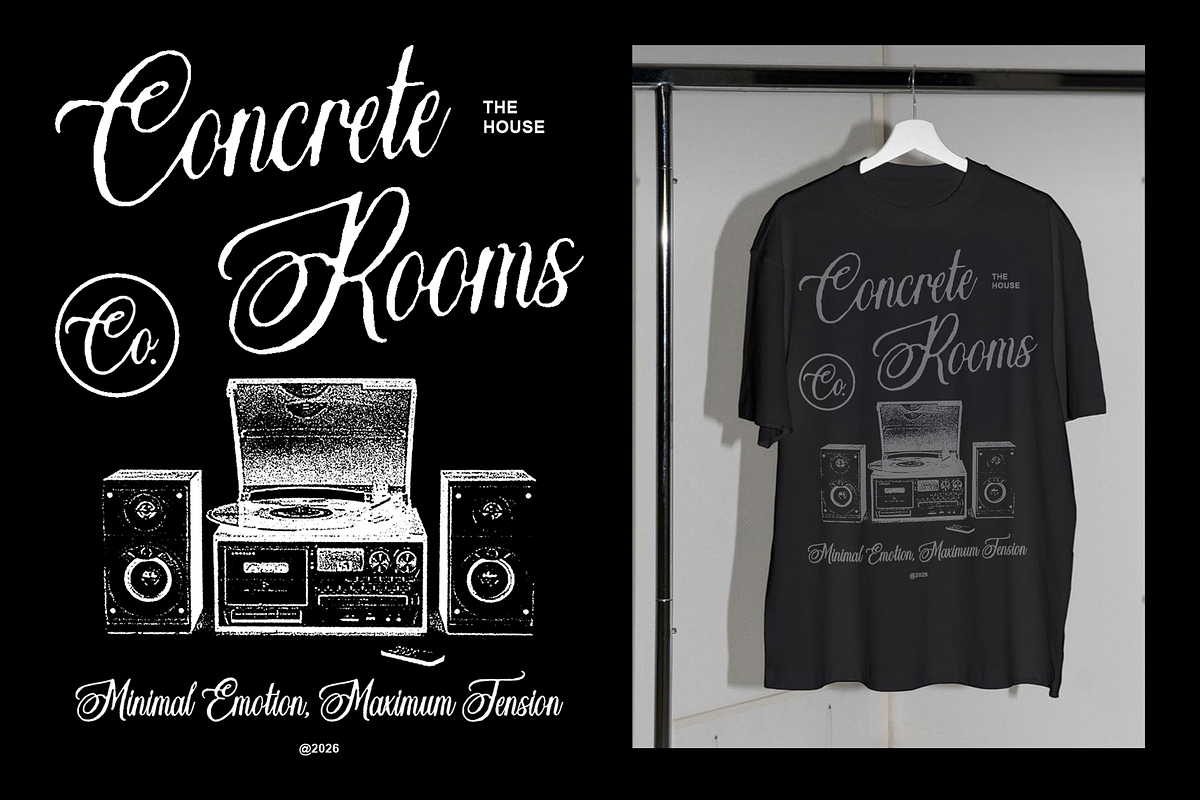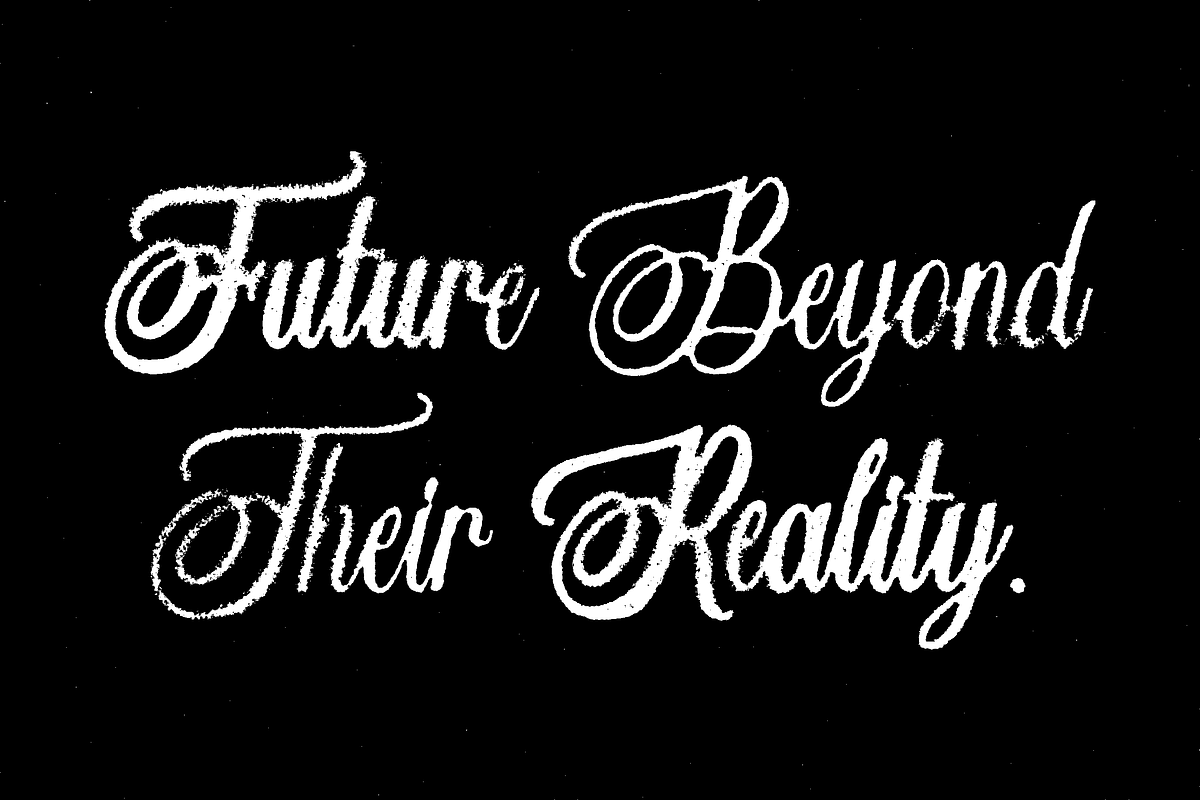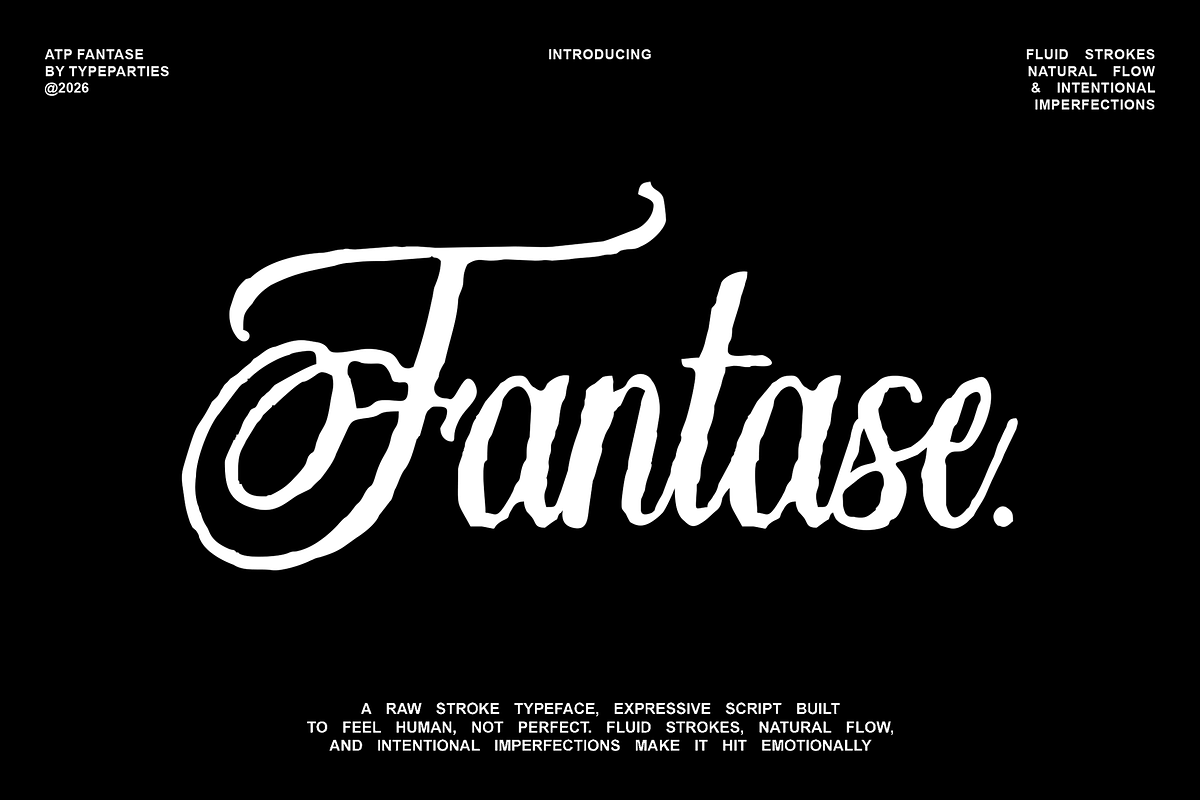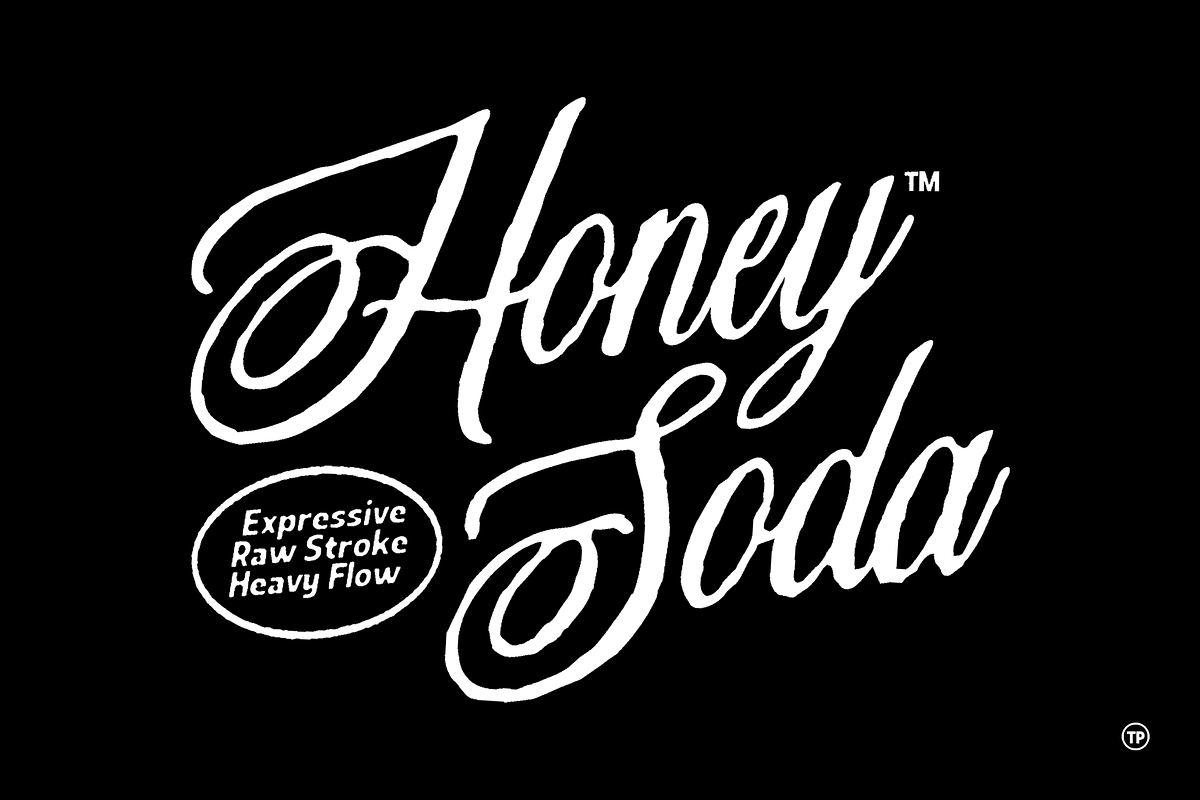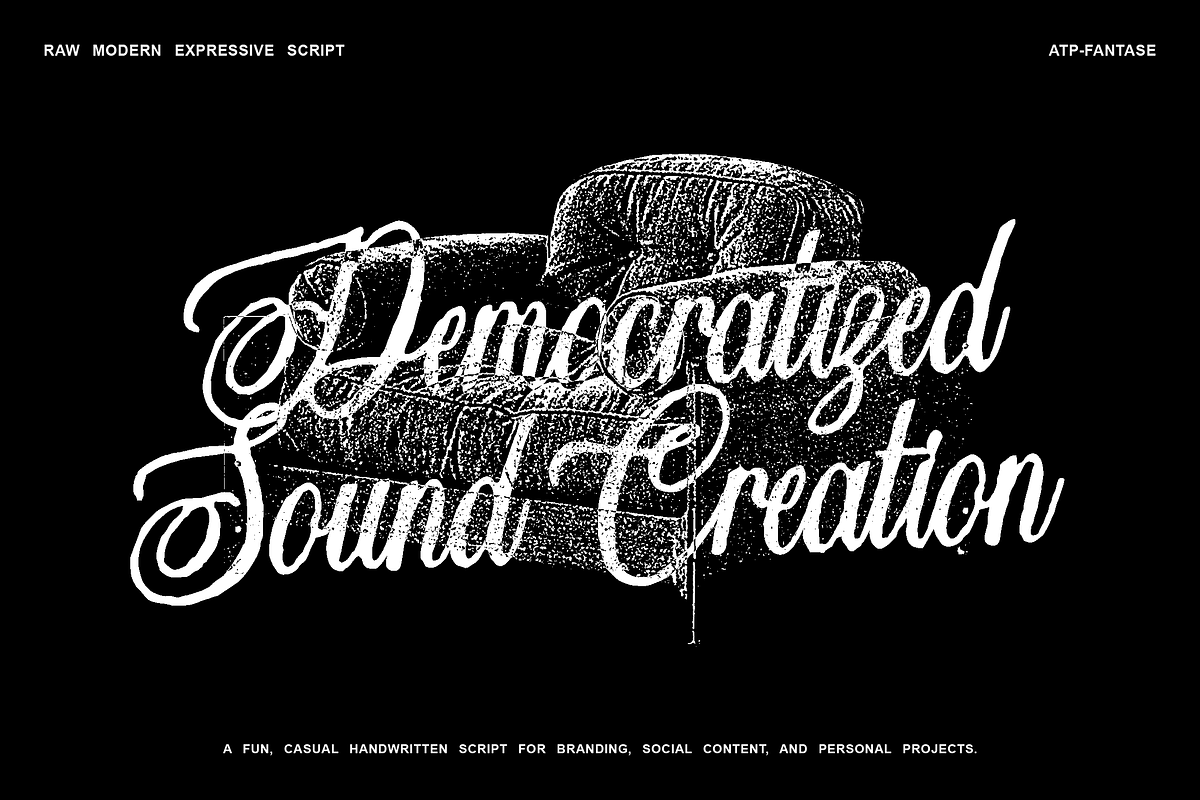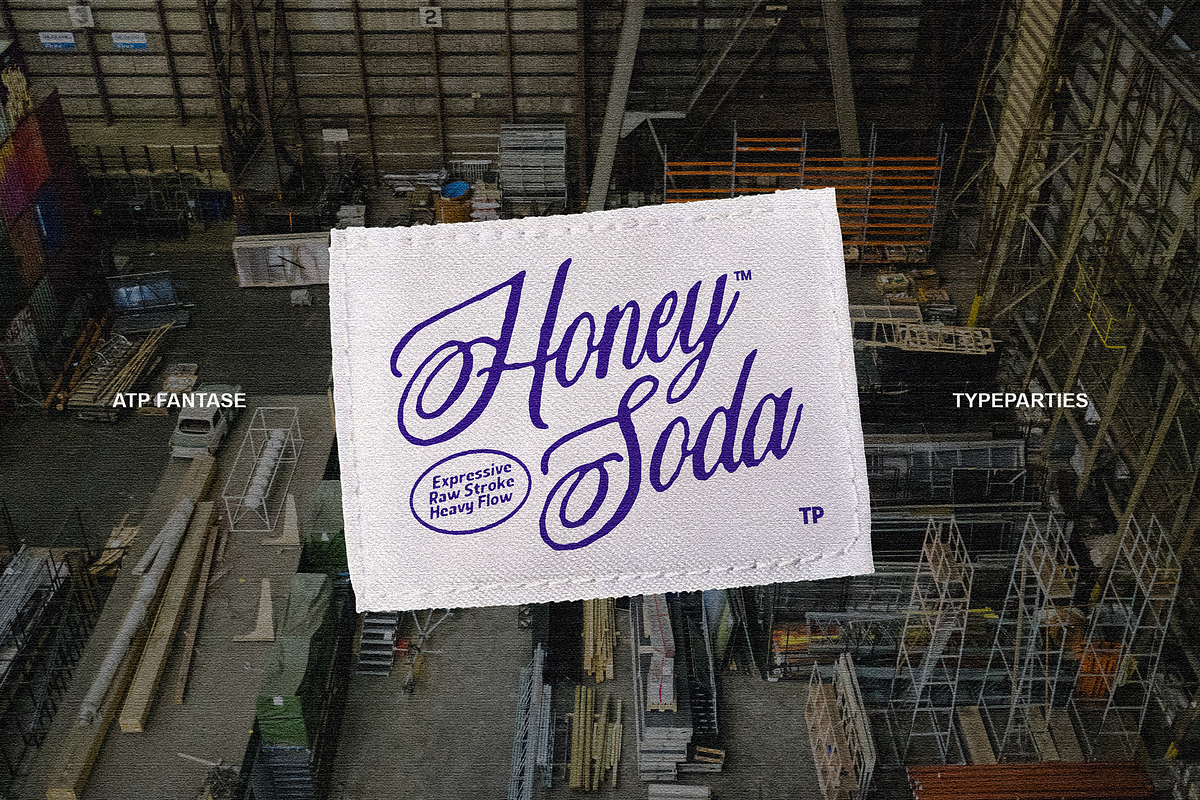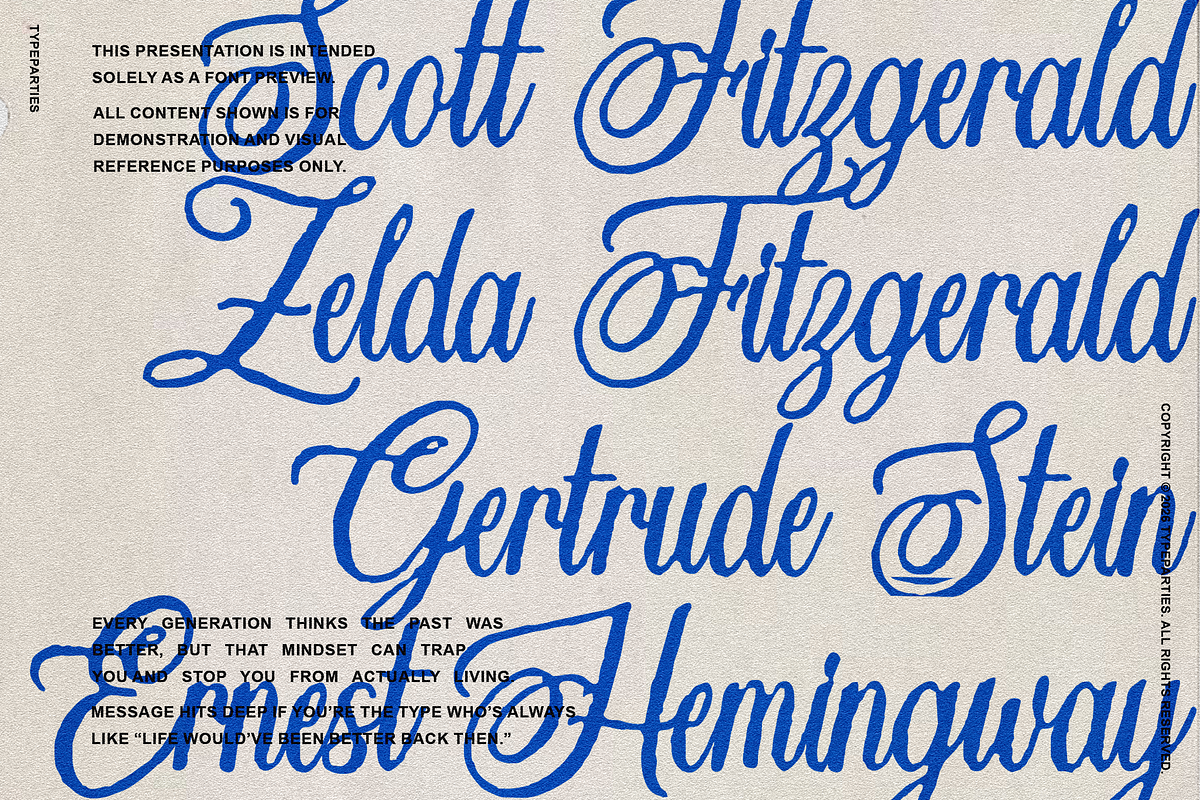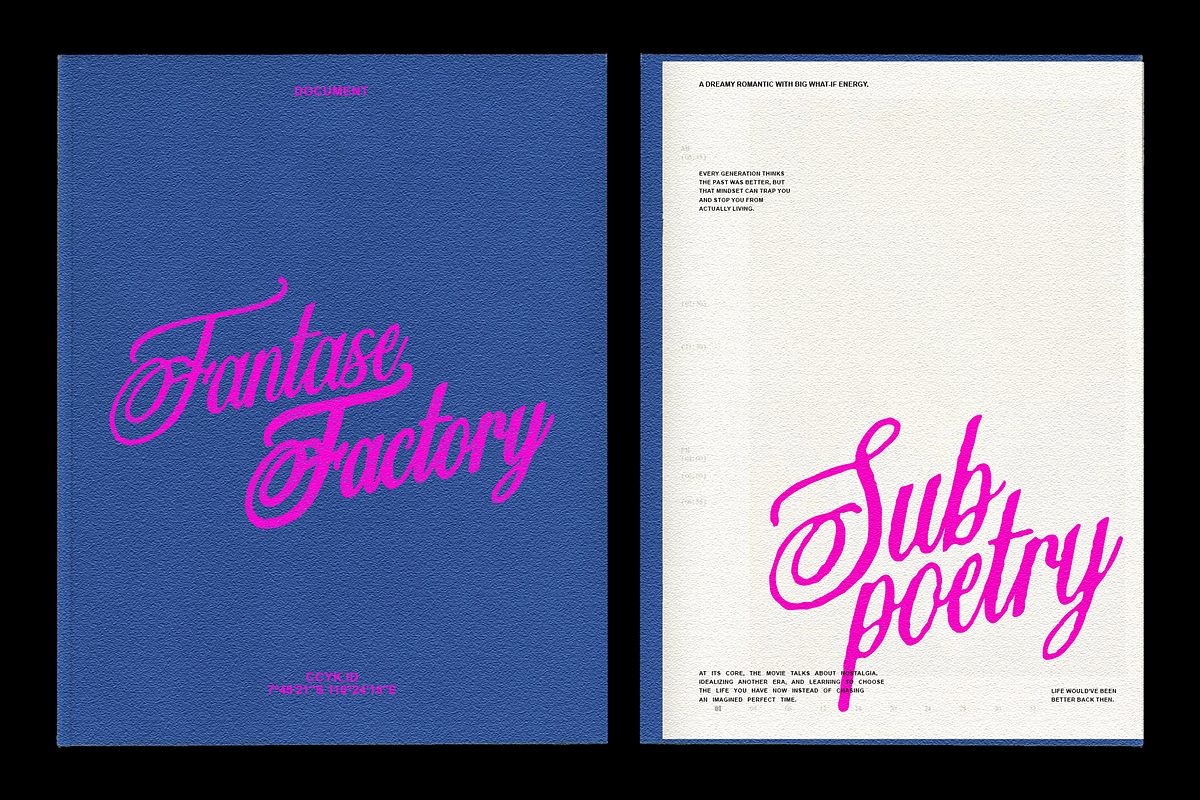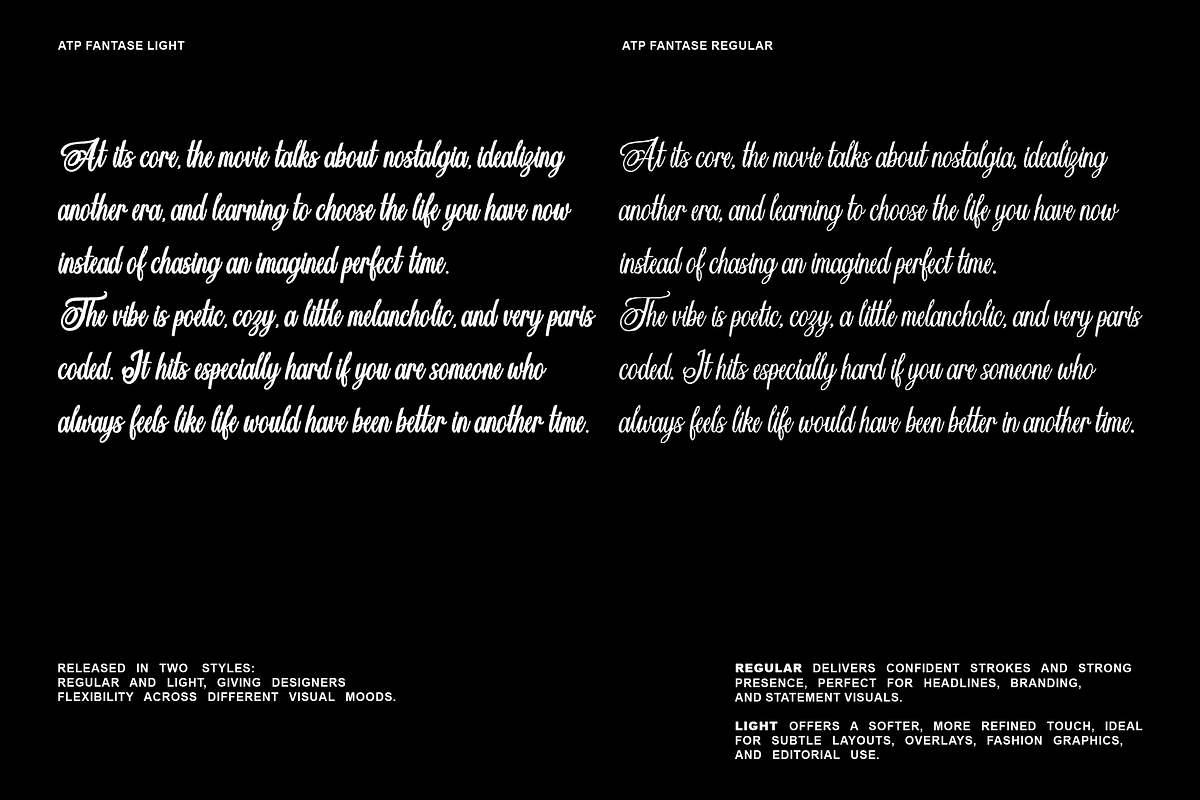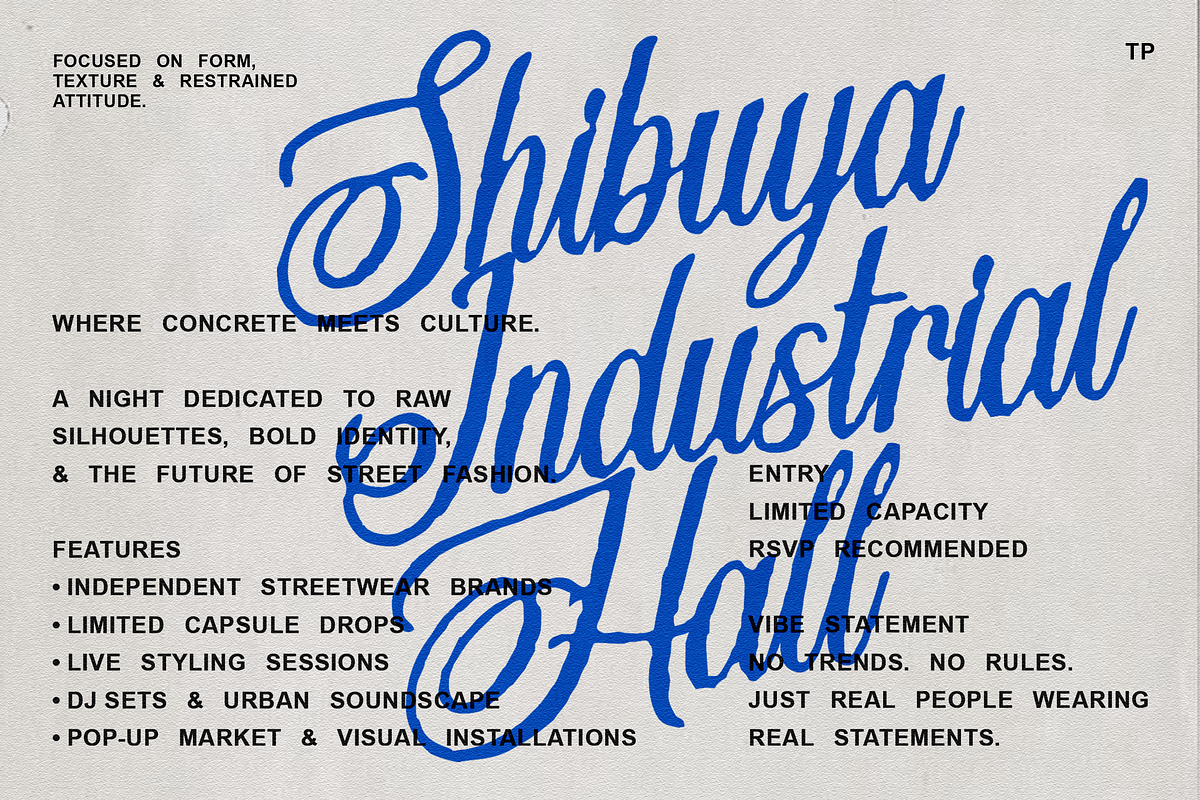
Fantase – Modern Handwritten Script
Fantase is a raw, expressive script built to feel human, not perfect. Fluid strokes, natural flow, and intentional imperfections make it hit emotionally made that want to feel personal, not polished.
Each curve is intentionally imperfect, allowing the font to feel alive rather than mechanical. This makes Fantase especially effective for branding, editorial headlines, album covers, fashion visuals, and personal storytelling where emotional tone matters as much as readability.